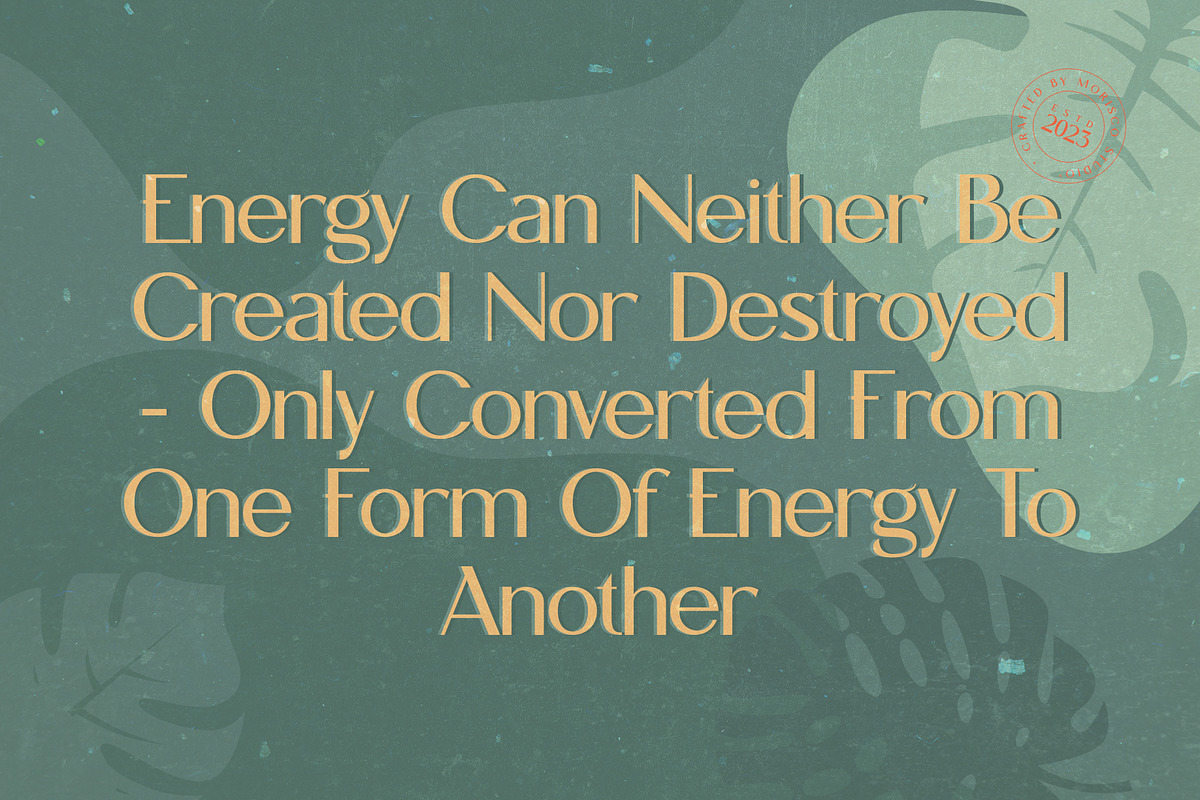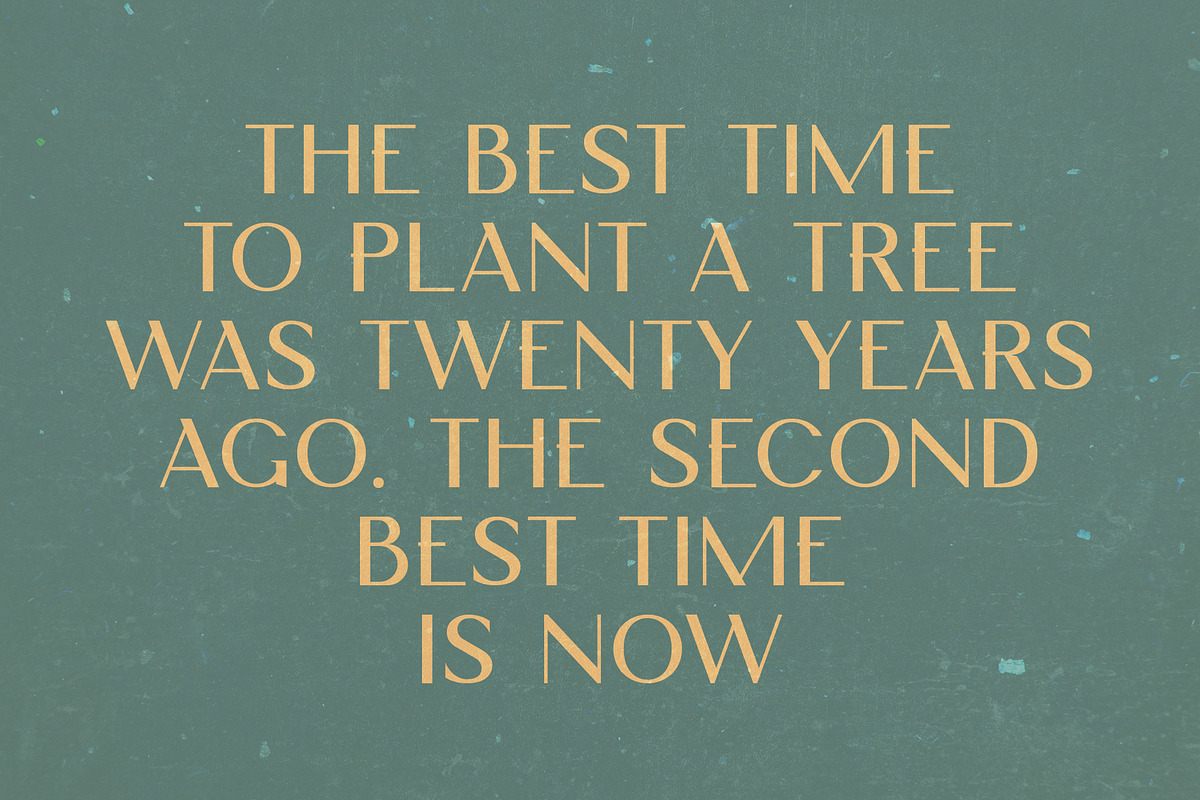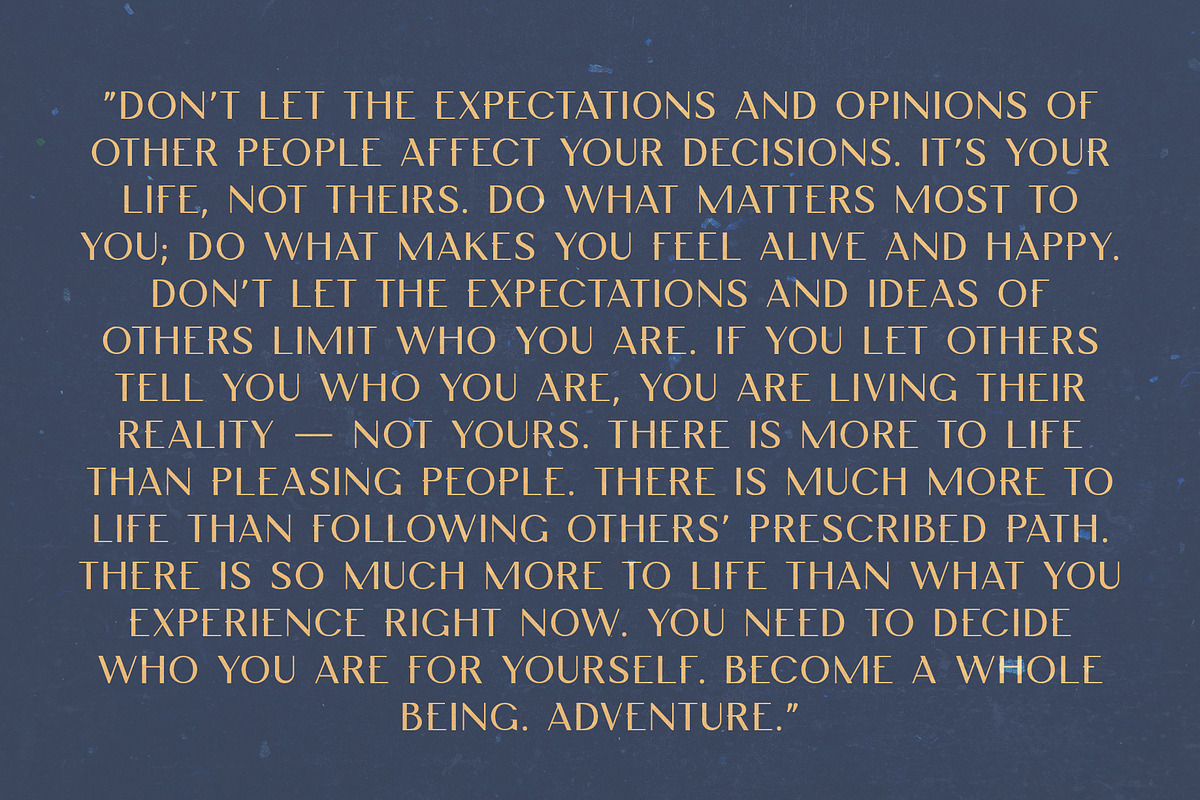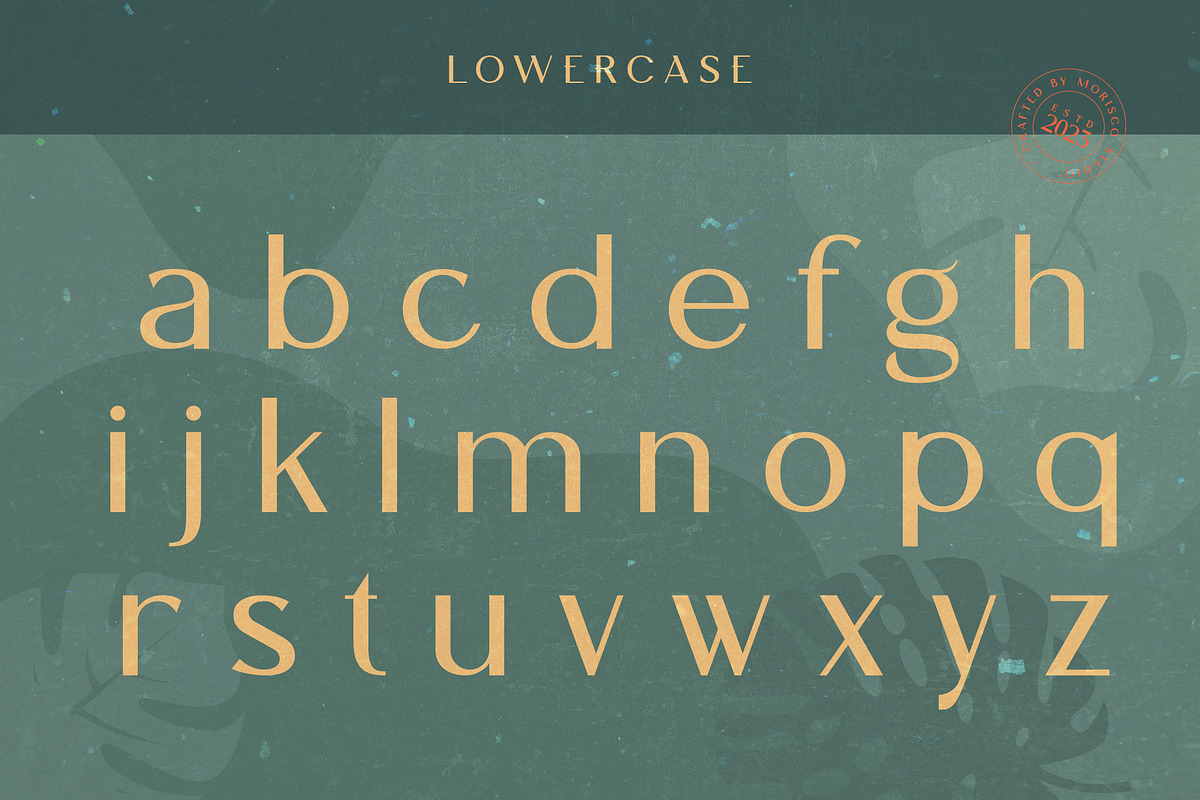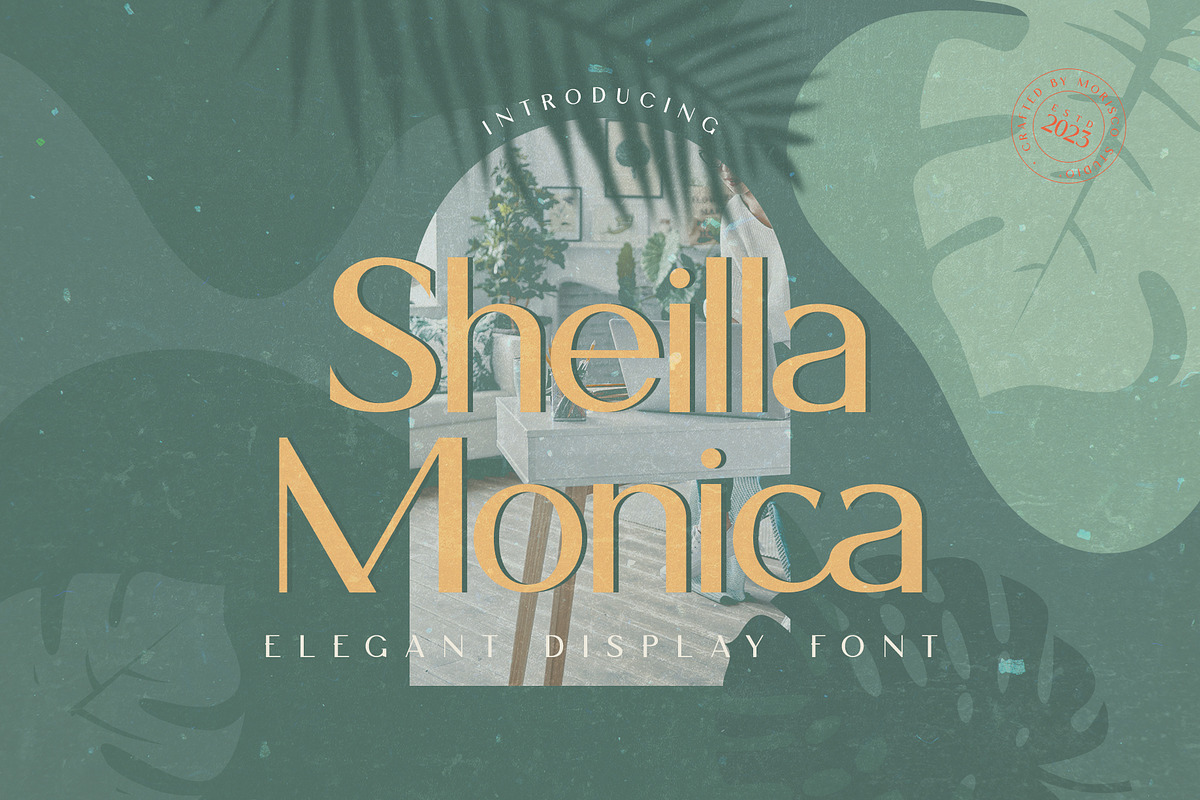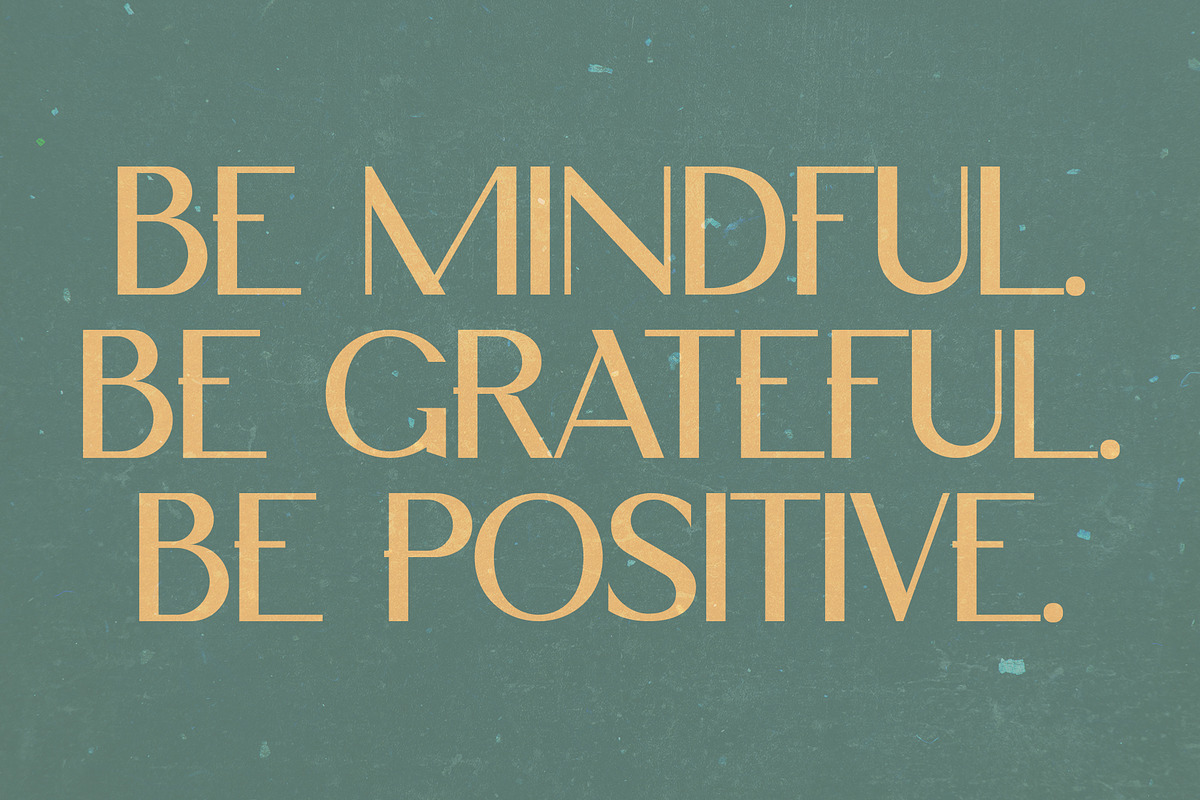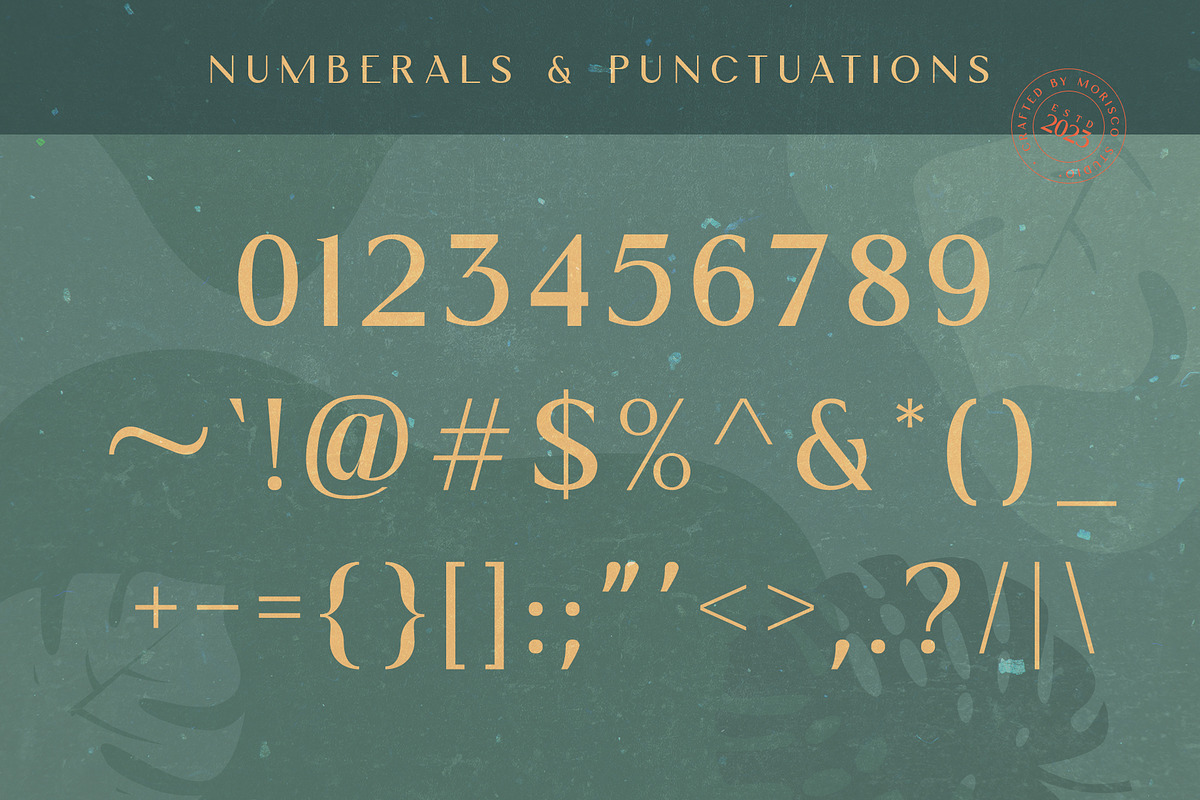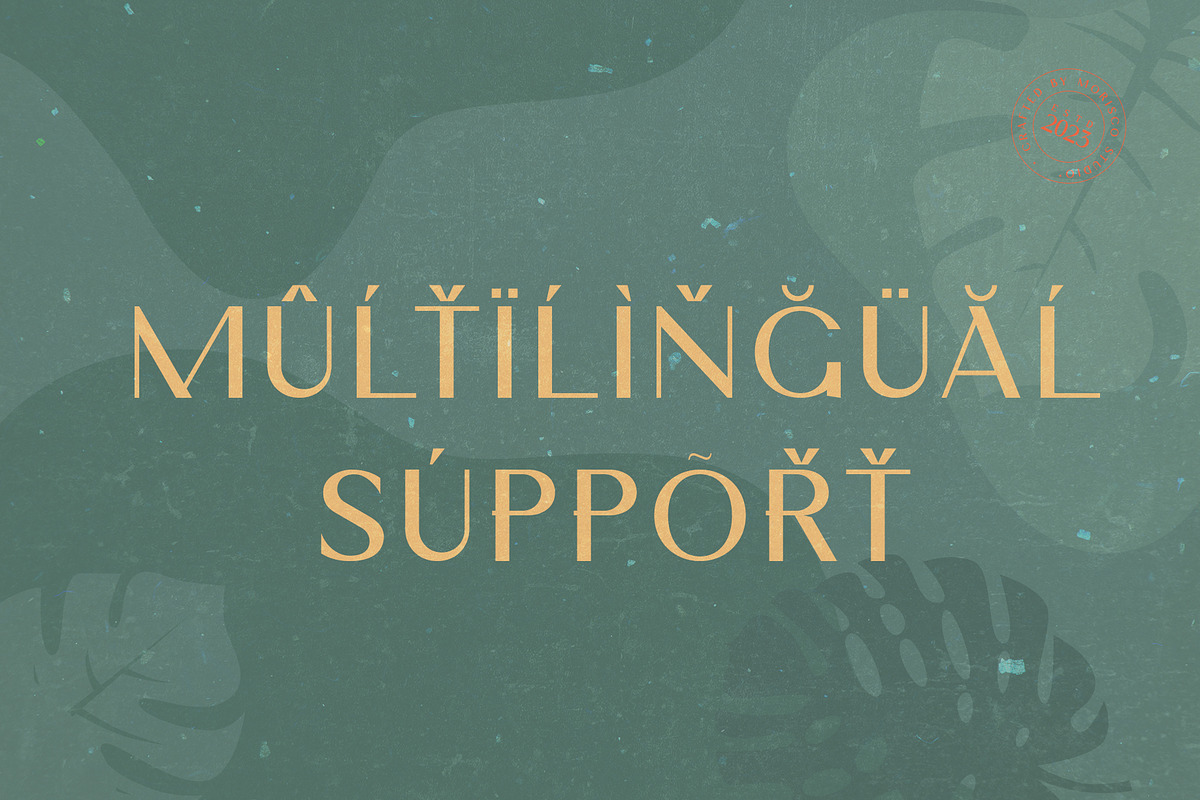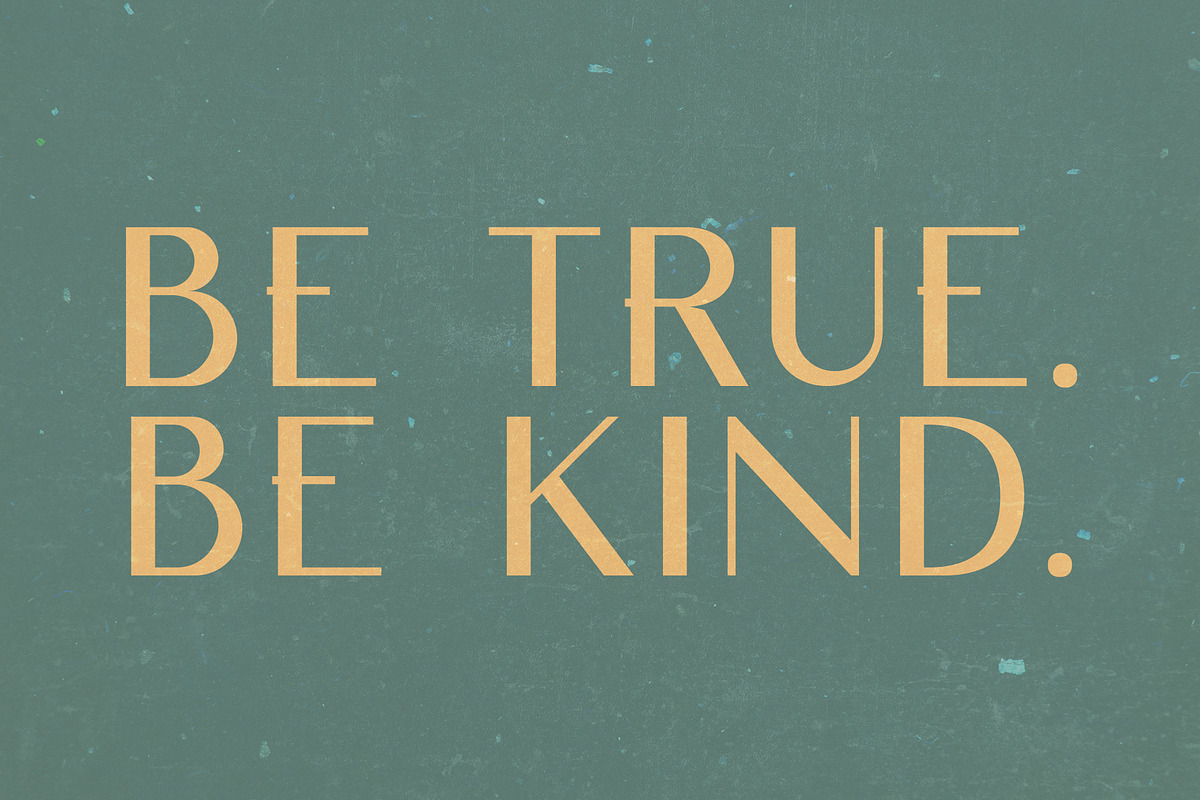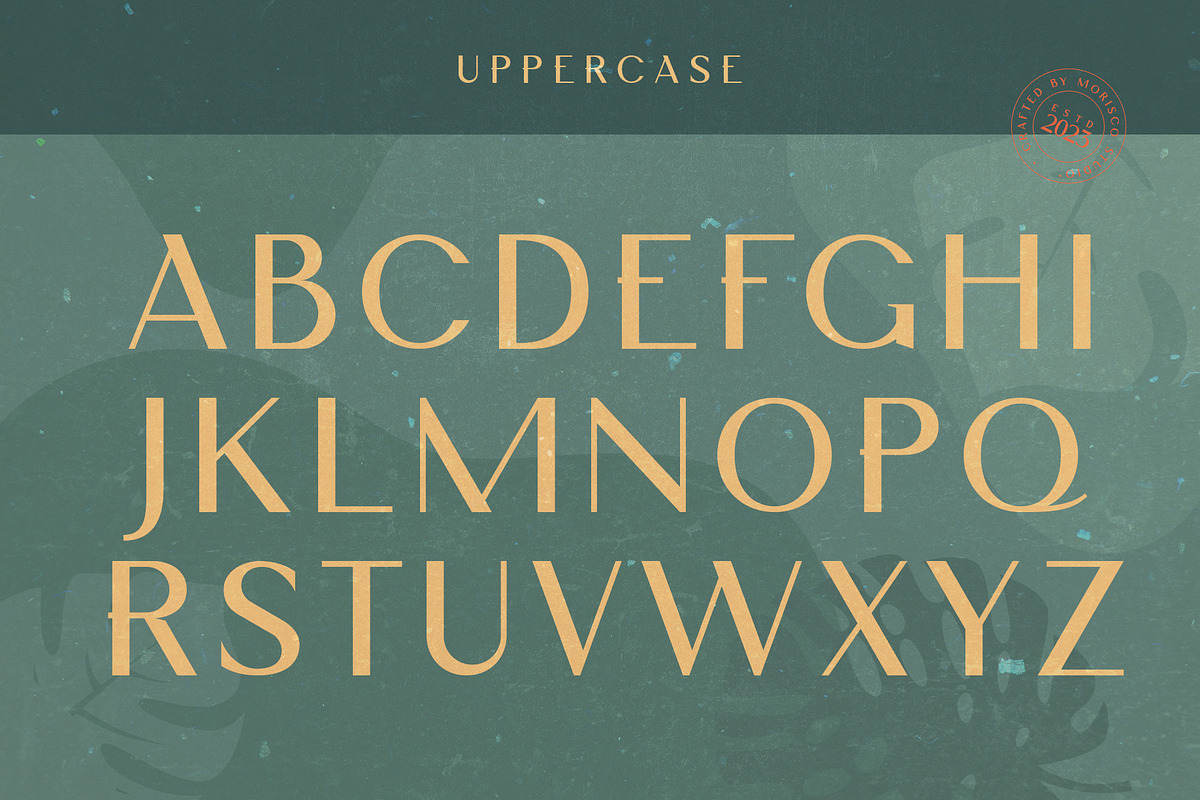
Sheilla Monica - Elegant Display
Sheilla Monica is an elegant typeface with a unique character designed by morisco studio. This typeface is well-suited for headlines and any project, like branding, print template, logo, and more.